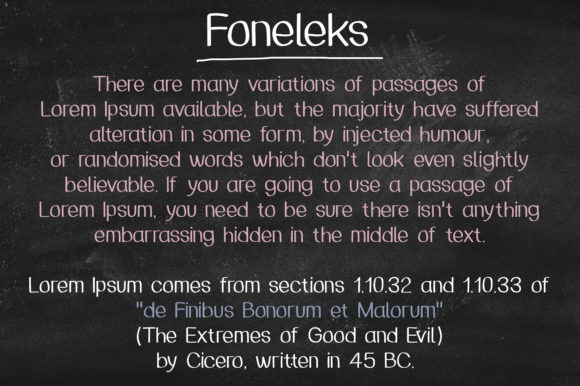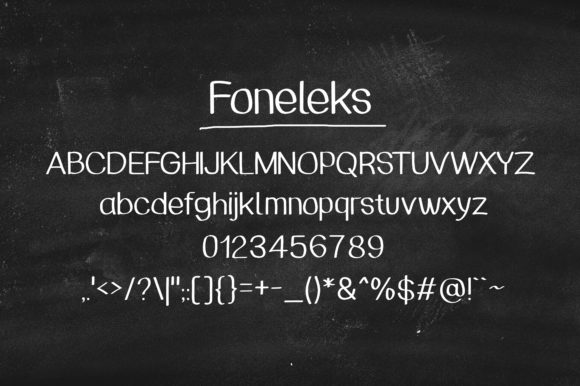
Introduction to Foneleks Font
Do you remember the moment when you stumbled upon the perfect font for your design project? It’s like finding a missing puzzle piece – everything falls into place, and your creative vision starts to take shape. For many designers, that moment is often accompanied by a sense of excitement and relief. In this article, we’ll explore the wonderful world of Foneleks Font, a high-quality, free download that’s about to become your new go-to design resource.
With its sweet and friendly handwritten style, Foneleks Font is the perfect addition to any creative project. Its natural and unique design makes it incredibly versatile, allowing you to experiment with different ideas and styles. Whether you’re working on a logo, a social media graphic, or a print design, Foneleks Font is sure to bring a touch of personality to your work.
Foneleks Font
- Designed with a unique, modern aesthetic that’s perfect for contemporary projects
Honest Review: Foneleks Font
I recently had the chance to work with the Foneleks Font, and I have to say it’s been a game-changer for my design projects. This free download is an incredible resource for any designer looking to add a unique touch to their work. The high quality of the font makes it perfect for creative projects, and I love how versatile it is.
One of the things that really stands out about the Foneleks Font is its ability to work seamlessly with transparent backgrounds. This makes it a great choice for designs that require a lot of layering and depth.
- ✨ High quality design that’s perfect for creative projects
- ✨ Works well with transparent backgrounds
- Limitations:
- ⚠️ Limited character set, which can make it difficult to use for longer text
- ⚠️ Not suitable for body text, as it can be difficult to read in larger quantities
Overall, I’m really impressed with the Foneleks Font. While it does have some limitations, it’s a great resource for designers who are looking to add a unique touch to their work. I would definitely recommend it for creative projects where you need a high-quality, eye-catching font.
Foneleks Font is a high-quality, free download font that can be used in various creative projects. It’s a versatile design resource that can add a unique touch to your work.
Tips for Getting the Most Out of Foneleks Font
Use Foneleks Font on a transparent background to create a striking design.
Combine Foneleks Font with other high-quality design resources to create a unique and eye-catching design.